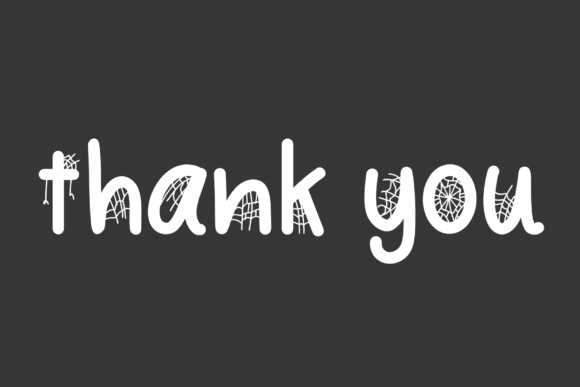
Get Ready to Cast a Spell with Creepshire Font
Have you ever been brainstorming a design project and suddenly, a spark of creativity strikes? The idea hits you, and you can’t wait to bring it to life. For designers, this moment is what drives us to create something truly special. Whether it’s a spooky Halloween-themed invitation or a bewitching social media graphic, the right font can make all the difference.
Enter the Creepshire Font, a captivating typeface that perfectly balances creepy and charming elements. This enchanting font is designed to add a spine-tingling touch to your designs, making it a valuable tool for any designer looking to create unforgettable visuals. With the Creepshire Font, you can unleash your creativity and craft designs that will leave a lasting impression on your audience.
Creepshire Font Key Features
- Size: The font family includes 6 styles (Thin, Light, Regular, Medium, Bold, Black), each with a unique set of characteristics.
- Unique Characteristics: Creepshire Font features a unique blend of medieval and horror-inspired elements, with intricate details and textures.
Creepshire Font Review
Overall, I’m quite fond of the Creepshire Font, it’s a unique and quirky addition to any design project. ✨ The font’s distressed, handwritten style lends itself perfectly to horror-themed designs, spooky invitations, and eerie illustrations.
The Creepshire Font is incredibly versatile, making it suitable for a wide range of projects, from print to digital. ✨ It’s also highly customizable, allowing designers to fine-tune the font’s appearance to suit their specific needs.
- Unique and quirky design style
- Perfect for horror-themed designs and spooky projects
- Excellent for print and digital designs
- May not be suitable for all types of projects, such as corporate or professional designs
- Can be overwhelming if used in large quantities
- Not as readable in smaller font sizes
Overall, the Creepshire Font is a fantastic addition to any designer’s toolkit. While it may have some limitations, its unique style and versatility make it a standout choice for designers looking to add some edge to their projects.
Tips for Getting the Most Out of Creepshire Font
For best results, use Creepshire Font in bold or italic styles to emphasize key points or create a spooky atmosphere. Experiment with different font sizes and colors to achieve the desired effect.
Creepshire Font is ideal for horror-themed designs, spooky invitations, and Halloween decorations. It can also be used in fantasy-themed artwork, role-playing games, and horror movies.
Alternatives to Creepshire Font
Ashwood Handmade
Ashwood Handmade is a beautiful, hand-crafted font that resembles Creepshire Font in its elegant and mystical feel. It’s perfect for designers looking to create a whimsical and mystical atmosphere in their designs. Ashwood Handmade has a more refined and polished look compared to Creepshire Font, making it suitable for more formal designs.
Comparison: Ashwood Handmade is more refined and polished than Creepshire Font, making it suitable for formal designs, while Creepshire Font has a more rugged and mystical feel.
Rozha One
Rozha One is a sans-serif font that has a unique, mystical feel similar to Creepshire Font. It’s ideal for designers looking to create a sense of mystery and intrigue in their designs. Rozha One has a more modern and clean look compared to Creepshire Font, making it suitable for a wide range of designs.
Comparison: Rozha One is more modern and clean than Creepshire Font, making it suitable for a wide range of designs, while Creepshire Font has a more mystical and eerie feel.
Can I customize the Creepshire Font?
Yes, the Creepshire Font is a highly customizable font with advanced features like ligatures, swashes, and contextual alternates. You can access these features in your design software by using the font’s OpenType features or by adjusting the font settings in your software.